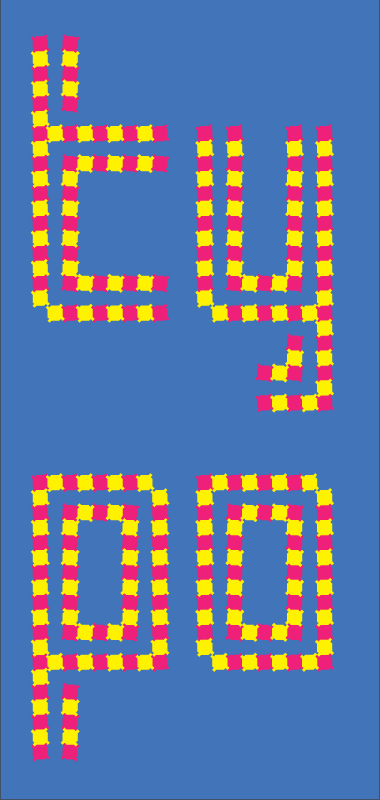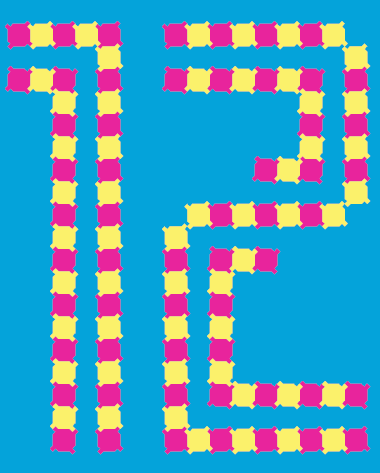
Short Tutorial:
1. Open a new file in Adobe Illustrator/Photoshop or equivalent software.
2. Set background color.
3. Type your text. Set font to Optill 2A; set font size, and color.
4. Copy text layer.
5. Set font to Optill 2B. Change font color.
Perfect.
Whoa, brill! =-O
Your inventiveness know no end ... great sample too.
Whoa. This blows me away.
It's like tripping without chemical aid.
WOw, this is quite a nice concept! Very simple but very charming. 10/10.
I have revised and nearly completed the character set.